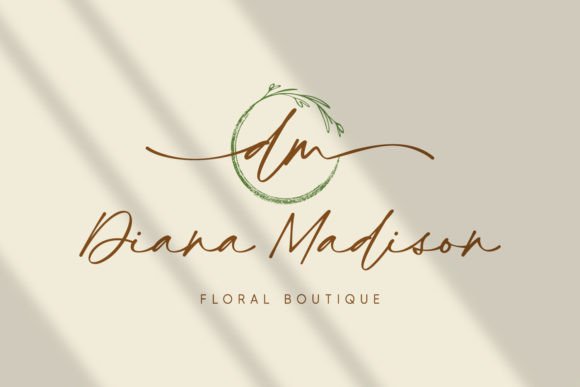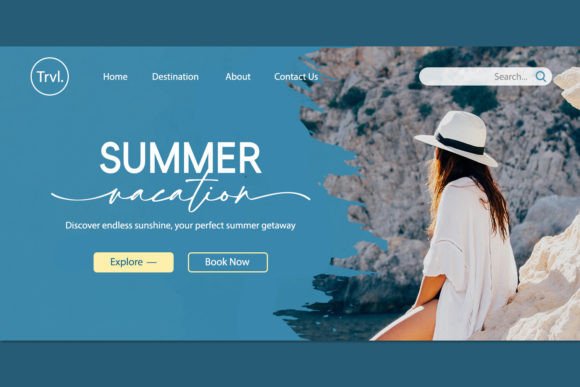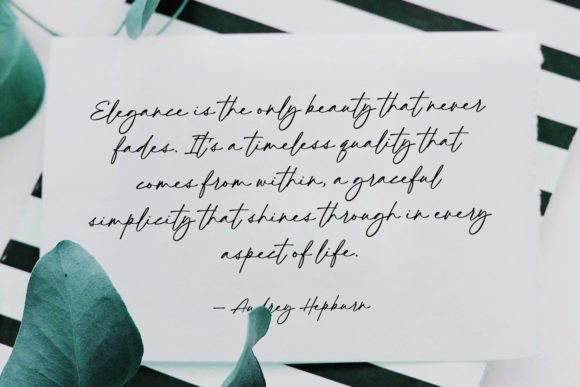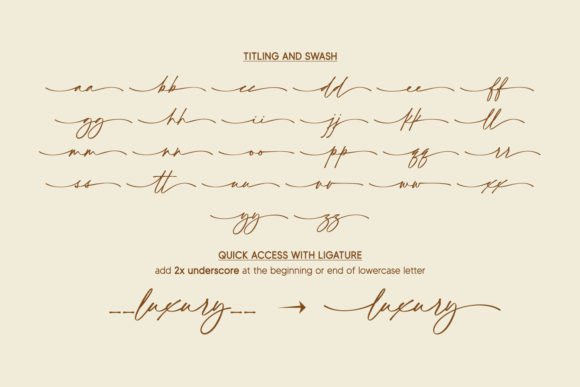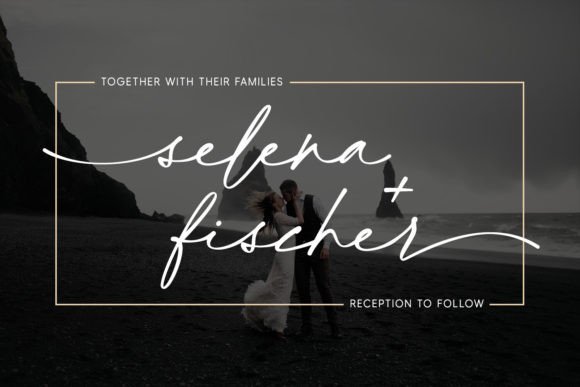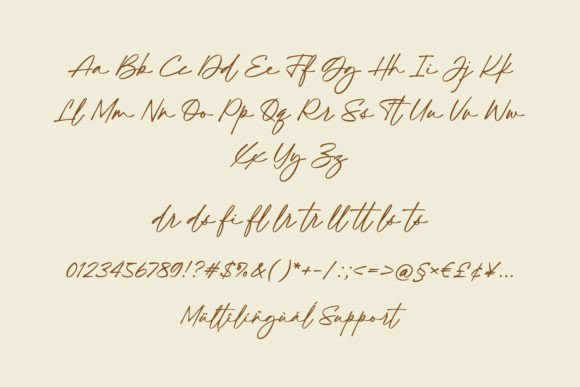
That’s where the Enthralling Font comes in – a modern and elegant script font designed to captivate your audience. With its flowing handwritten style and titling features, this font is perfect for creating eye-catching logos, posters, and wedding invitations. Whether you’re a seasoned designer or just starting out, the Enthralling Font is a valuable addition to your toolkit, offering endless possibilities for creative expression.
Key Features of Enthralling Font
- Unique characteristics:
- Flared terminals for a more dramatic look
- Custom-designed ligatures for improved readability
- Extensive language support, including Latin, Cyrillic, and Greek
- Font weight: Regular and Bold
- Perfect for use in digital and print media, including posters, magazines, and websites
Review of Enthralling Font
I recently had the chance to work with the Enthralling Font, and I must say it’s been an interesting experience. Here are my thoughts:
- The font’s unique, hand-drawn style adds a touch of elegance and sophistication to any design. It’s perfect for creating a premium or luxurious feel.
- The Enthralling Font has a wide range of weights and styles, making it easy to customize and adapt to different design needs.
- The font is highly legible, even at smaller sizes, which is a must-have for any designer.
- The font may not be suitable for projects that require a more modern or minimalist aesthetic. The hand-drawn style can feel a bit old-fashioned or cluttered in some cases.
- The font’s weight and style options can be overwhelming, making it difficult to choose the right combination for a specific design.
- The font may not be as versatile as some other fonts on the market, and may not be suitable for all types of projects.
Overall, I’d say the Enthralling Font is a solid choice for designers who want to add a touch of sophistication and elegance to their work. However, it may not be the best fit for every project, and designers should carefully consider their design needs before choosing this font.
Tips for Getting the Most Out of Enthralling Font
To get the most out of Enthralling Font, use it for headings and titles to create a visually striking effect. You can also pair it with other fonts to create a unique and eye-catching combination.
Enthralling Font is ideal for use in:
– Creative projects, such as posters, flyers, and brochures.
– Marketing materials, such as business cards and presentations.
– Social media graphics and ads.
Alternatives to Enthralling Font for Designers
Great Vibes is a modern, elegant script font that exudes a sense of sophistication and luxury. It’s perfect for use in high-end branding, wedding invitations, and other special occasions. Compared to Enthralling Font, Great Vibes has a more refined and polished look, making it ideal for formal and professional applications.
Pacifico is a beautiful, cursive script font that evokes a sense of relaxation and tranquility. It’s perfect for use in beach-inspired branding, travel websites, and other designs that require a laid-back vibe. Compared to Enthralling Font, Pacifico has a more fluid and organic look, making it ideal for designs that require a sense of movement and freedom.
Dancing Script is a lively, energetic script font that’s perfect for use in designs that require a sense of excitement and playfulness. It’s ideal for use in sports branding, video game websites, and other applications that require a high level of energy and enthusiasm. Compared to Enthralling Font, Dancing Script has a more dynamic and unpredictable look, making it ideal for designs that require a sense of movement and action.